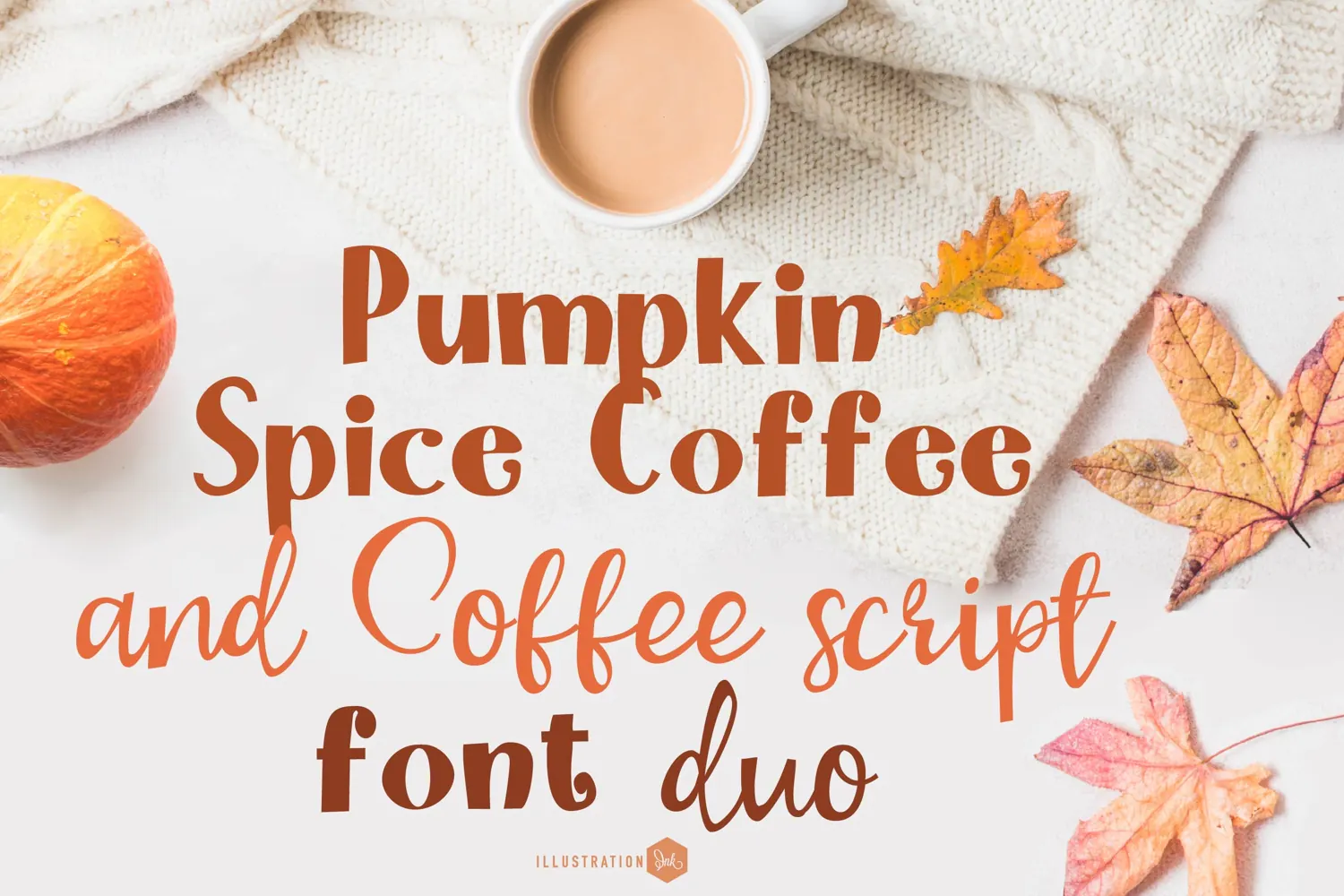
Pumpkin Spice Coffee Fall Display and Script Font Duo
Pumpkin Spice Coffee is a cozy font duo pairing a bold, playful display font with a flowing handwritten script. Designed to work beautifully together, these fonts are perfect for autumn signs, coffee-themed designs, mugs, shirts, greeting cards, seasonal décor, invitations, social media graphics, and fall crafts.
• The letters are not perfectly uniform in size or shape.
• There may be slight variations in the spacing between letters and words.
• The font may have a "wiggly" or "squiggly" appearance.
• The font may be difficult to read at small sizes.